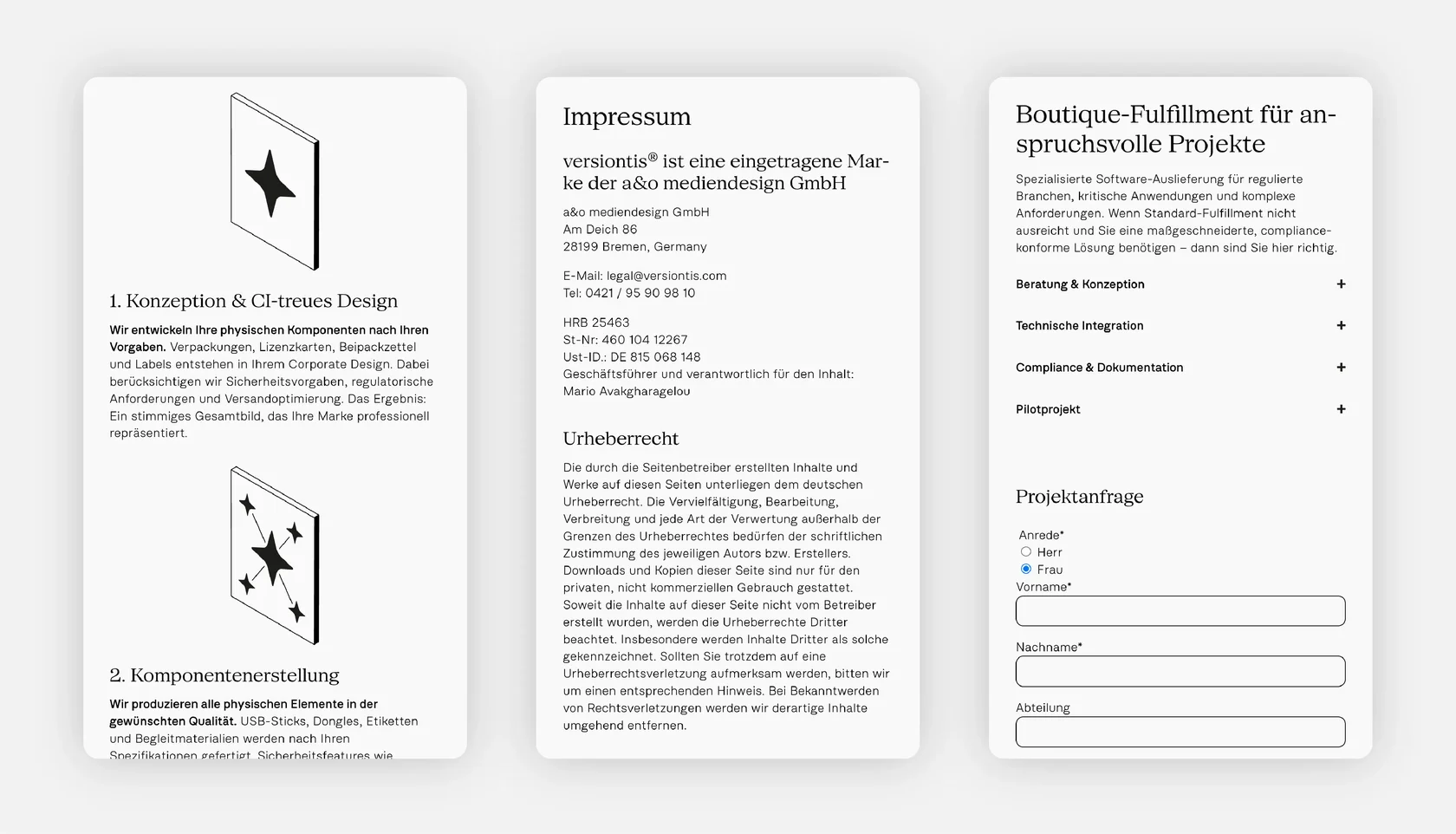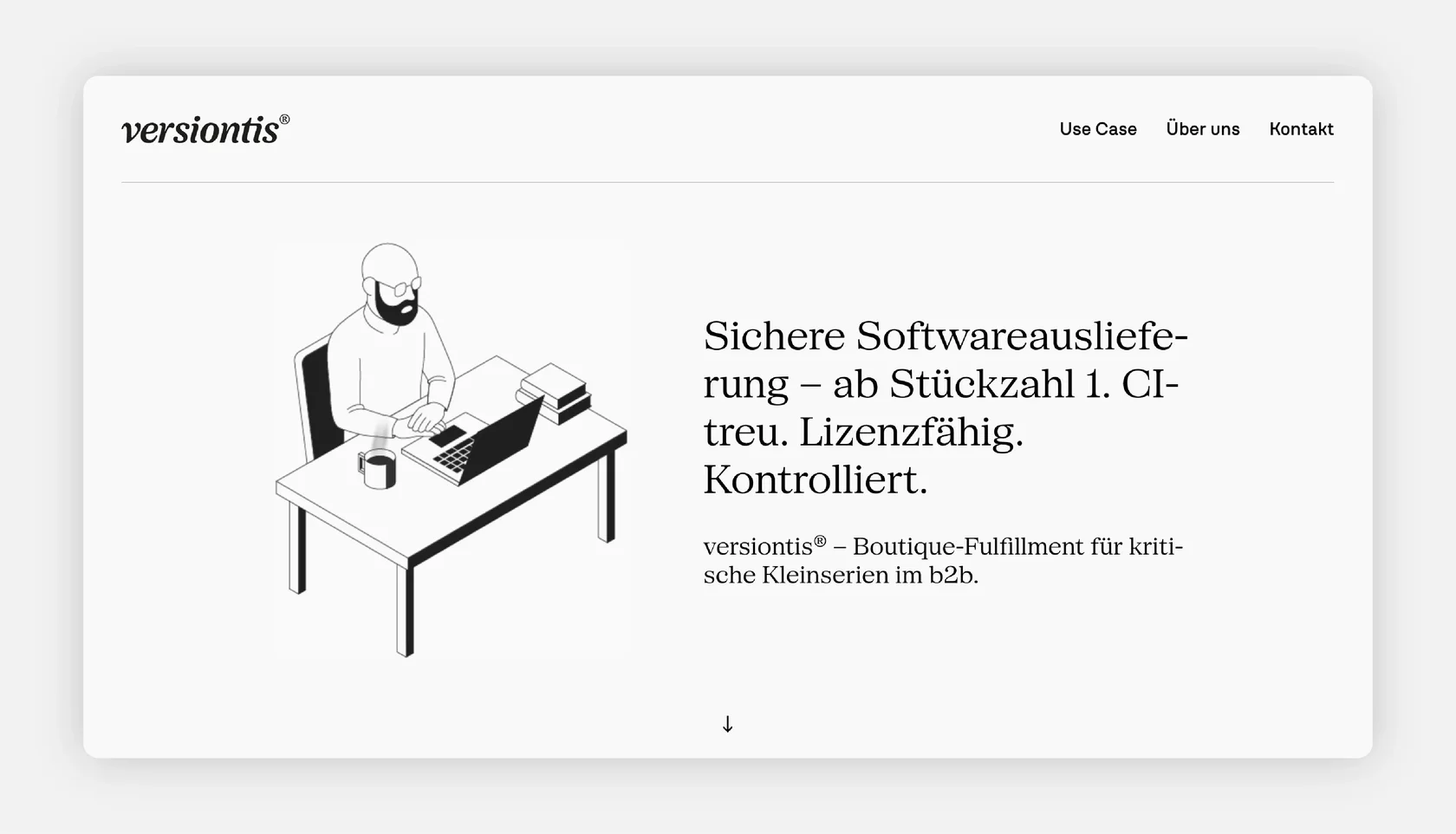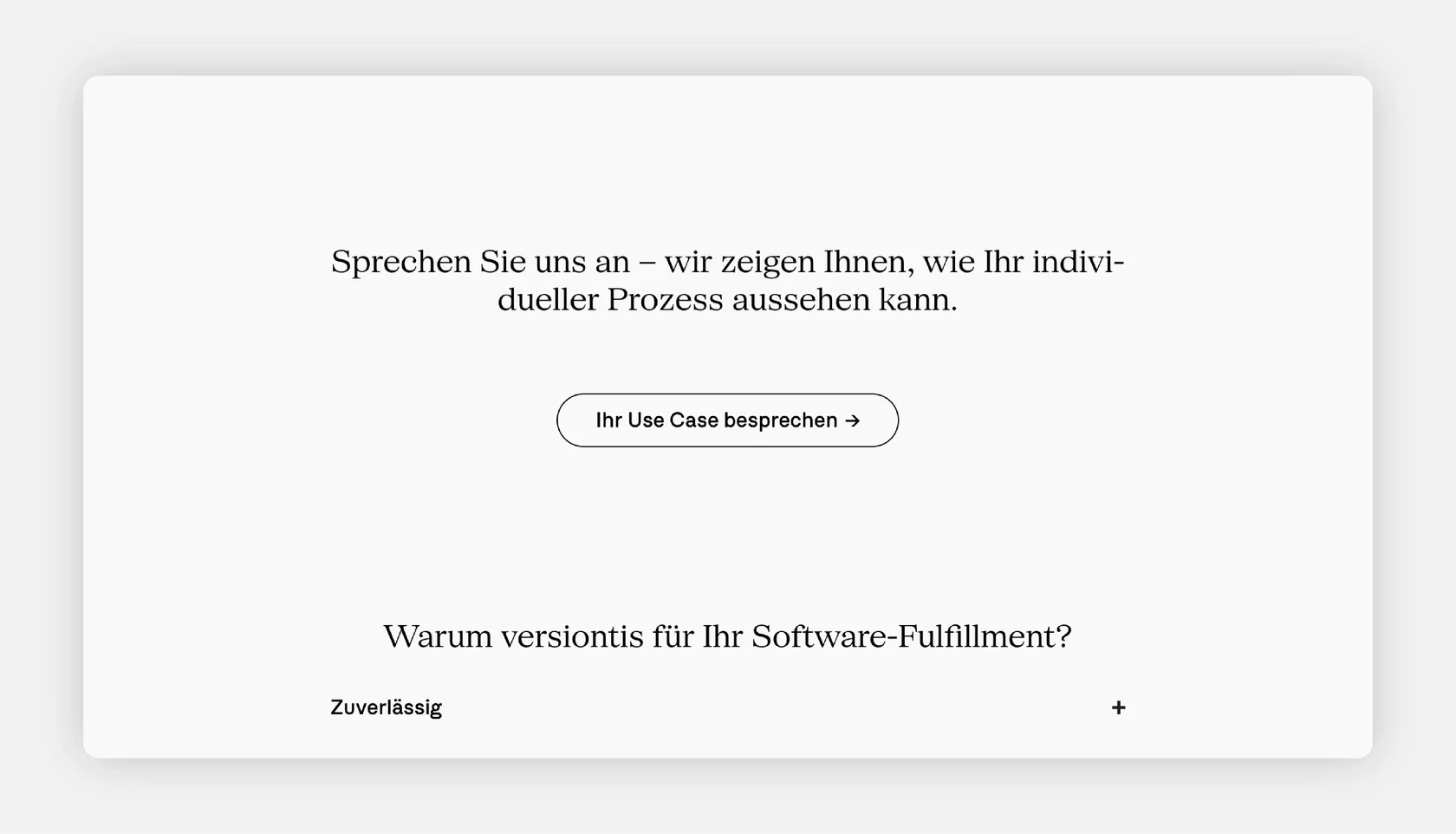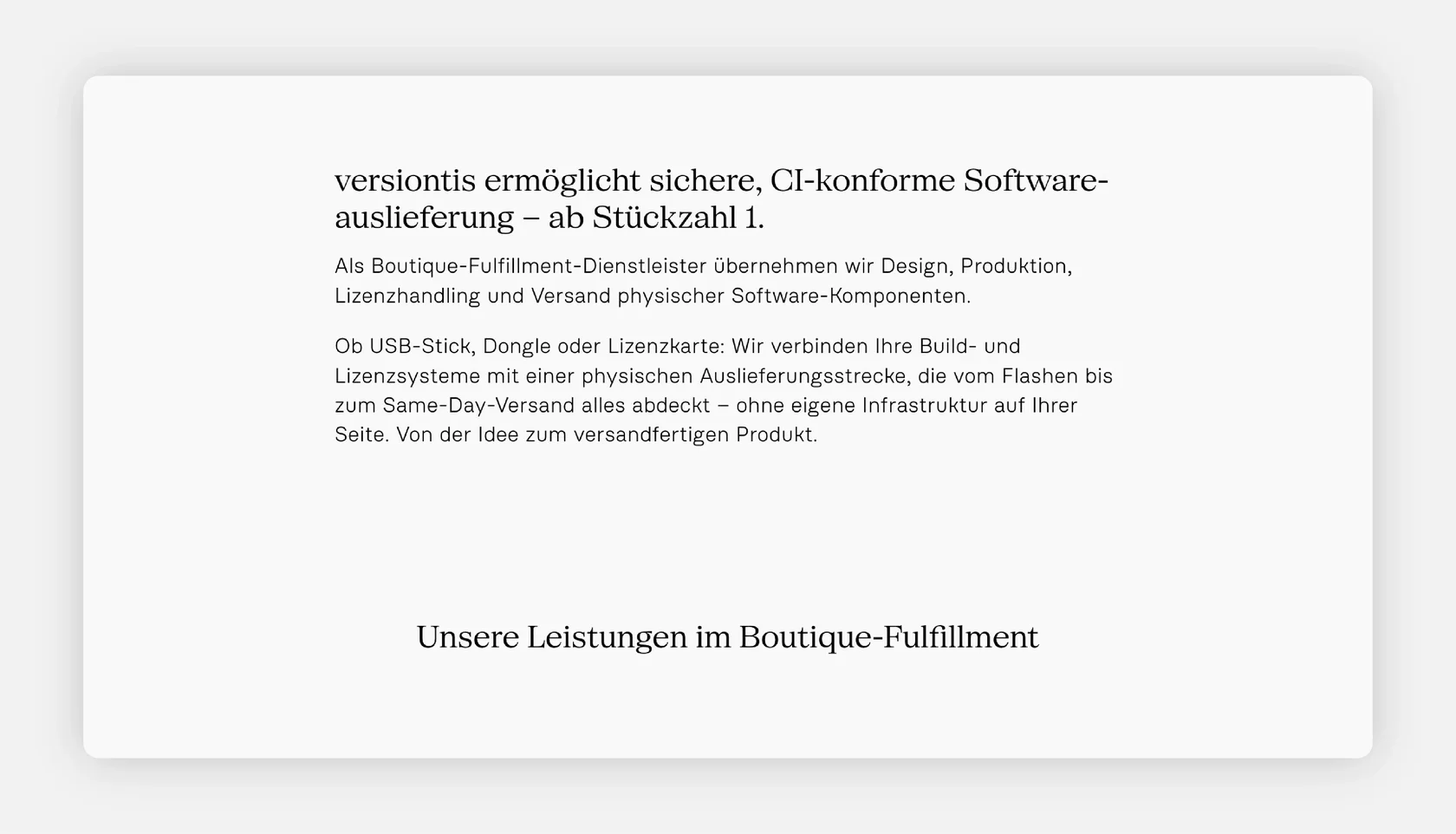
Versiontis — Boutique Software Fulfillment
Font: SFT Schrifted Serif + Nudica.
Use case: Website design.
About the Project:
Versiontis is a boutique partner for secure, CI-compliant software fulfillment, specializing in low-volume B2B production and licensing. Their website explains a structured end-to-end process—from component design and assembly to storage, personalization, and shipment—emphasizing reliability and controlled delivery for critical business environments.
Why SFT Schrifted Serif?
SFT Schrifted Serif is used throughout key textual elements, providing clarity and a professional tone. Paired with the geometric Nudica, the serif introduces contrast that supports legibility while bringing subtle personality to a technical subject. This combination helps the brand communicate precision, trust, and process transparency.